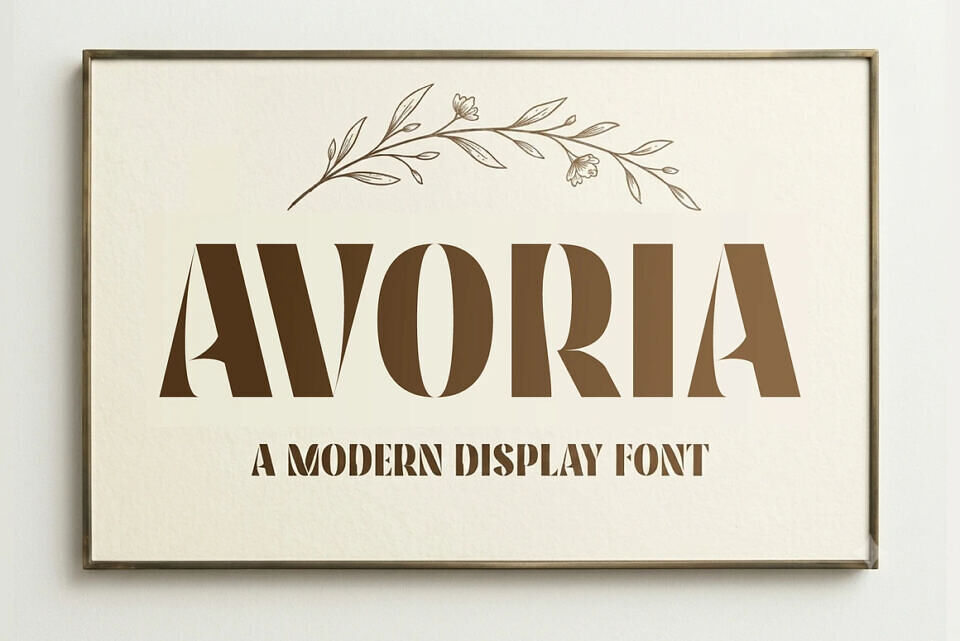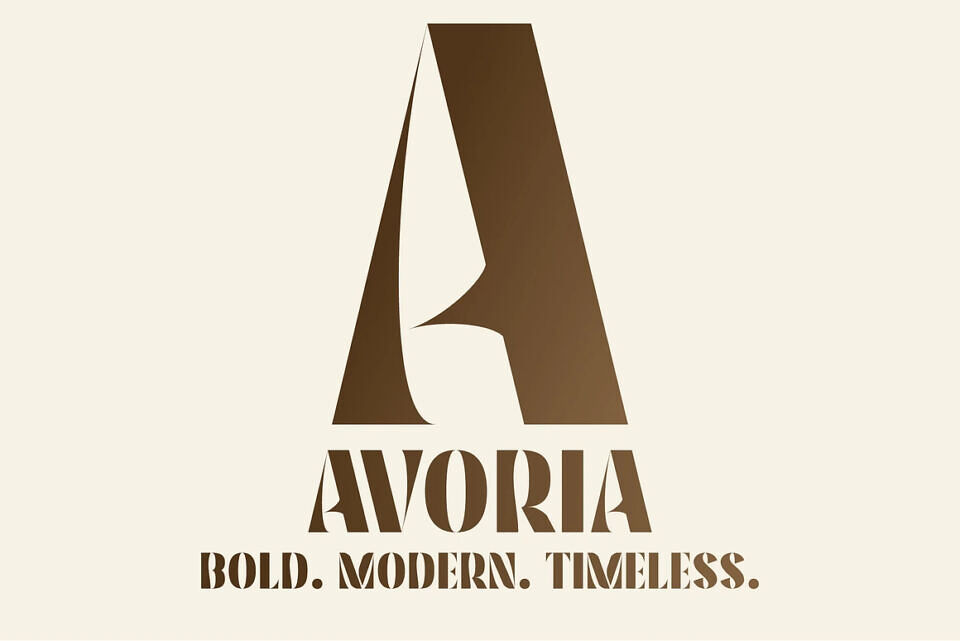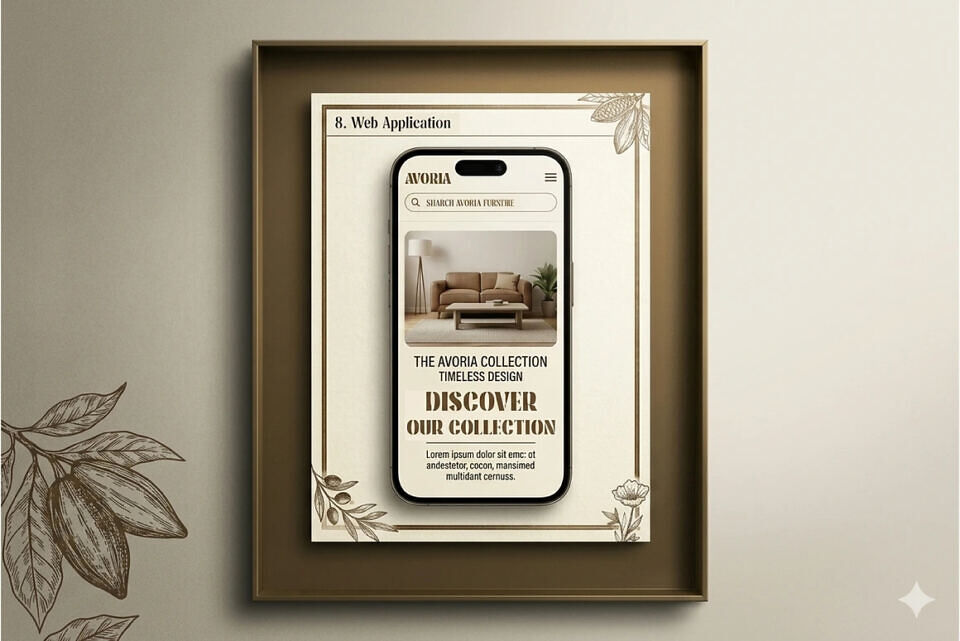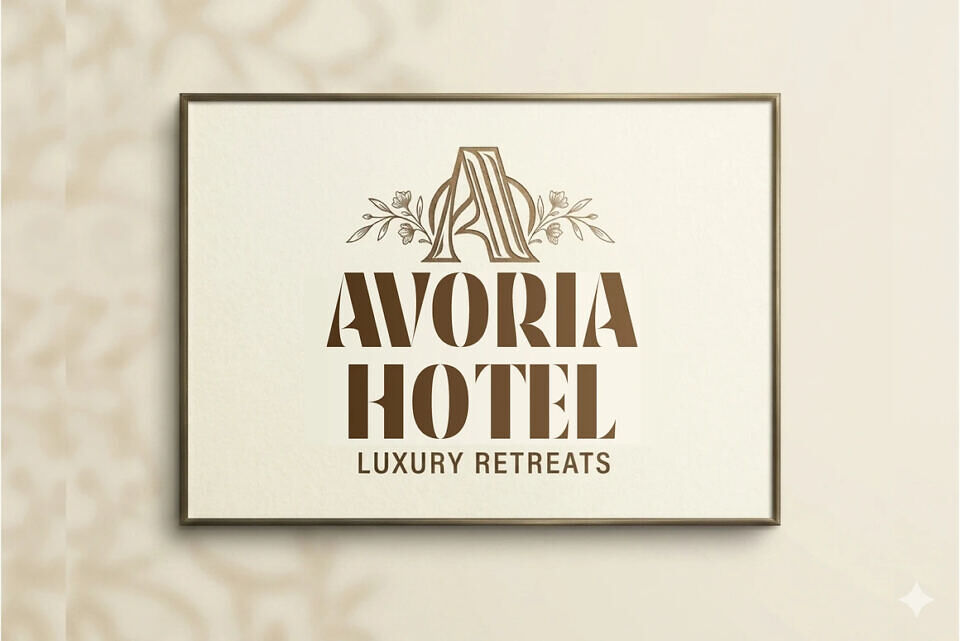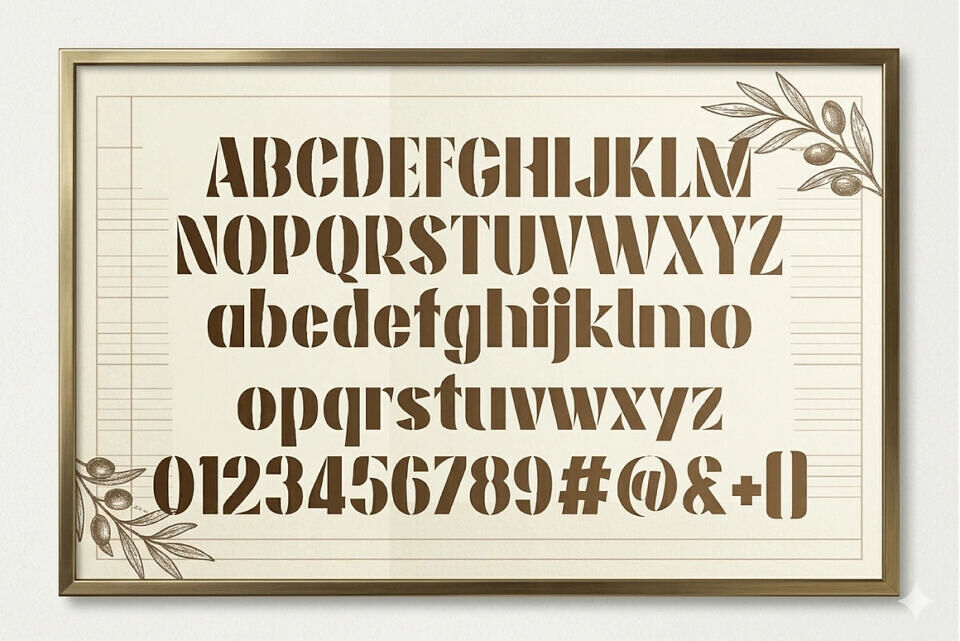
Avoria Font Family
Experience Avoria, a modern display font where vintage grace meets contemporary boldness. Inspired by the sleek sophistication of art deco and the approachable warmth of minimalist design, Avoria is designed to make your text the centerpiece.
Avoria features high-contrast strokes and strong vertical lines, creating a dramatic sense of hierarchy and style. Its characters are clean yet full of personality, offering an “organic” feel within a structured framework. The smooth, flowing transitions between thick and thin give it a high-end, luxurious appeal.